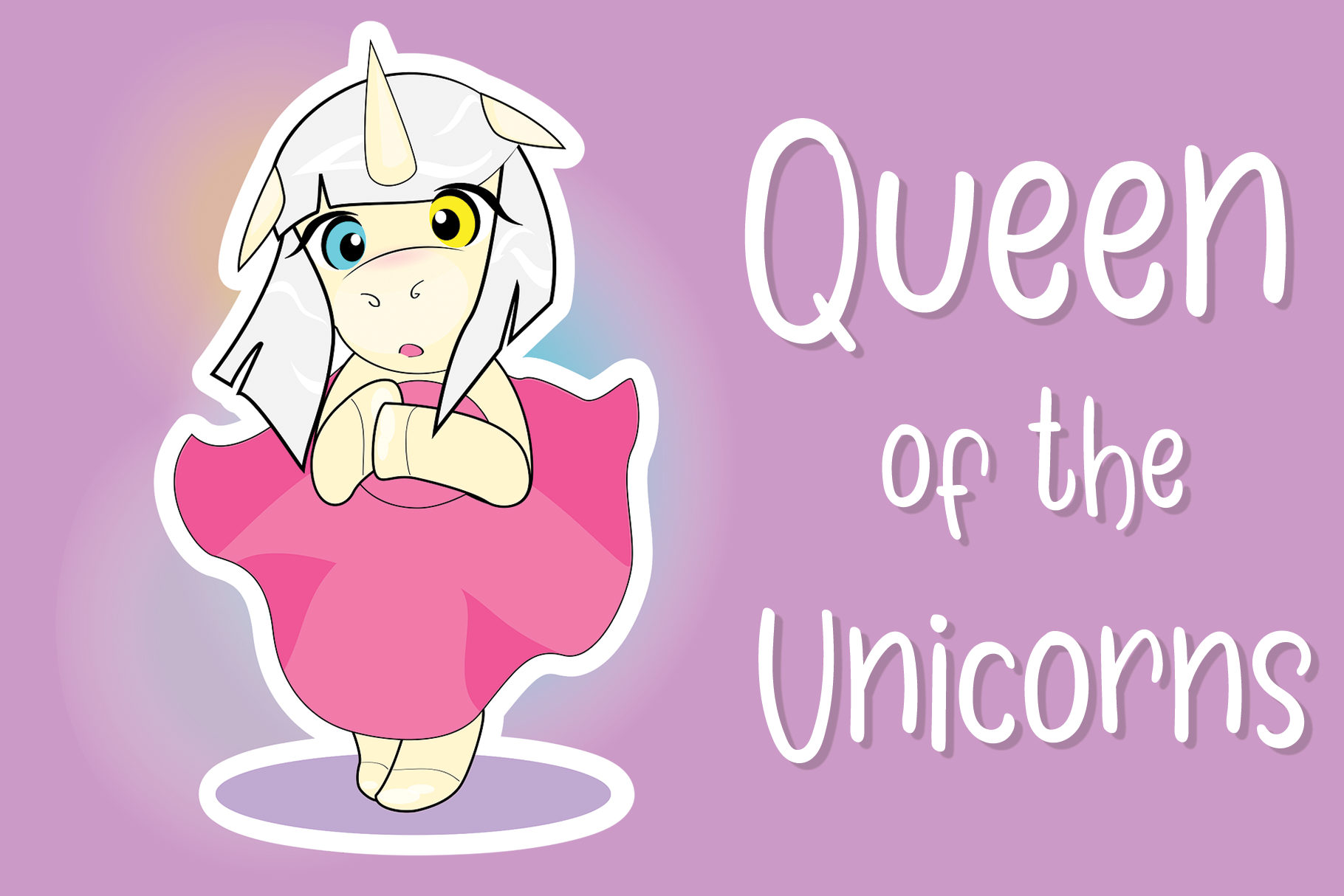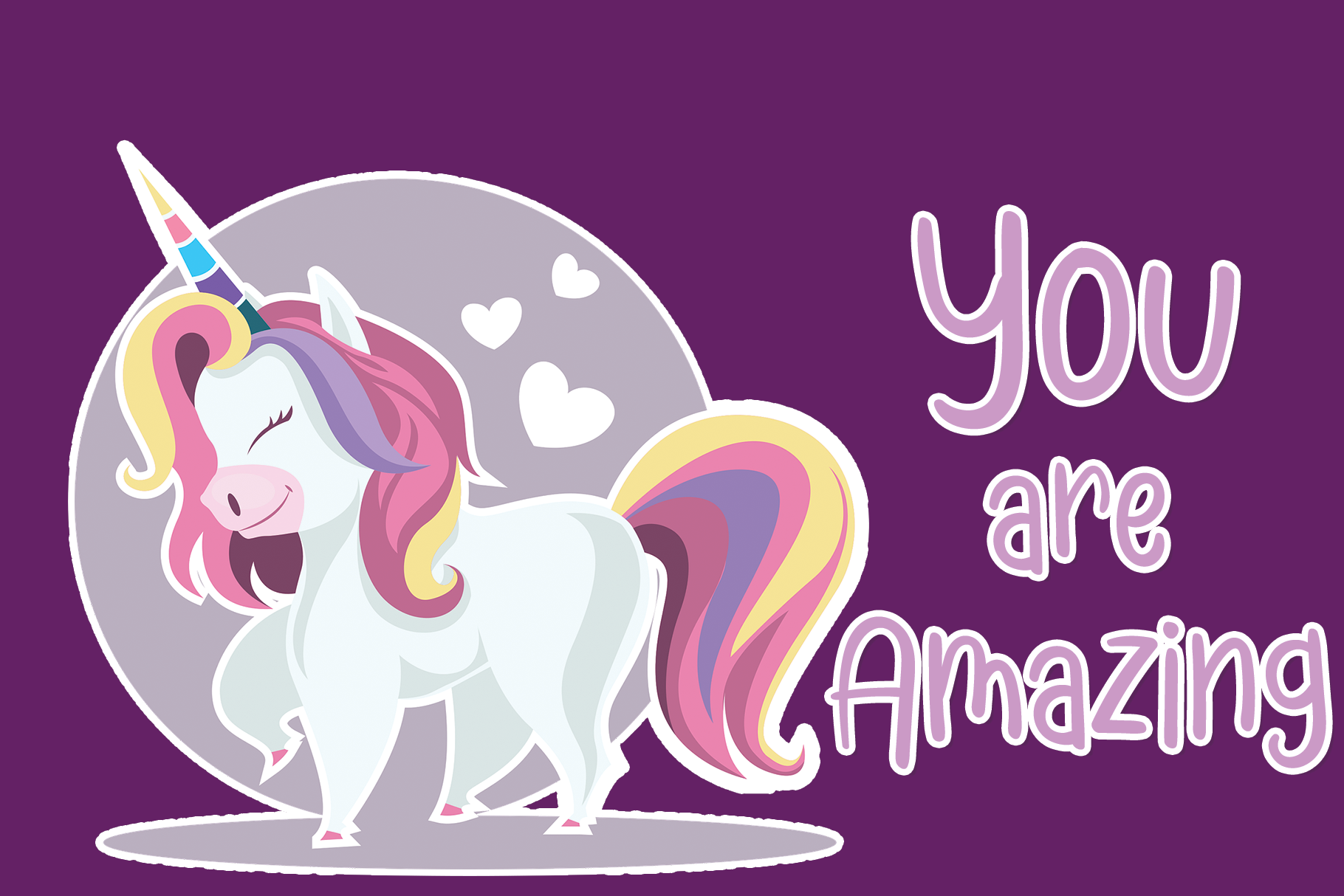
My Unicorn Font
My Unicorn Display Font
This is a magical script font carefully created with a touch of elegance. Whether you’re looking for fonts for Instagram or calligraphy scripts for DIY projects, this font will turn any creative idea into a true piece of art!